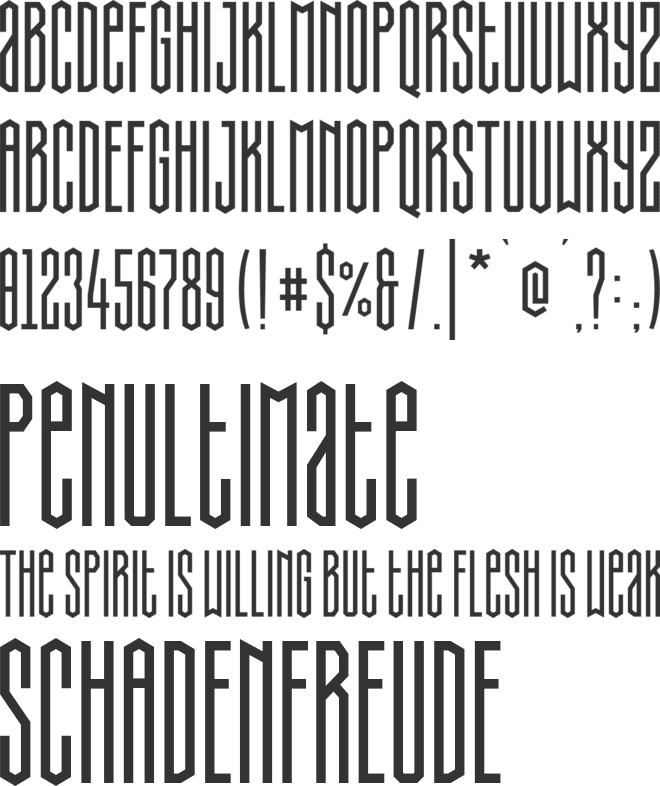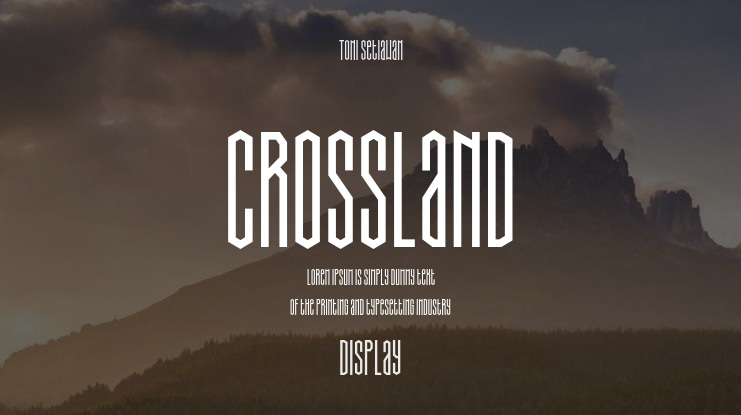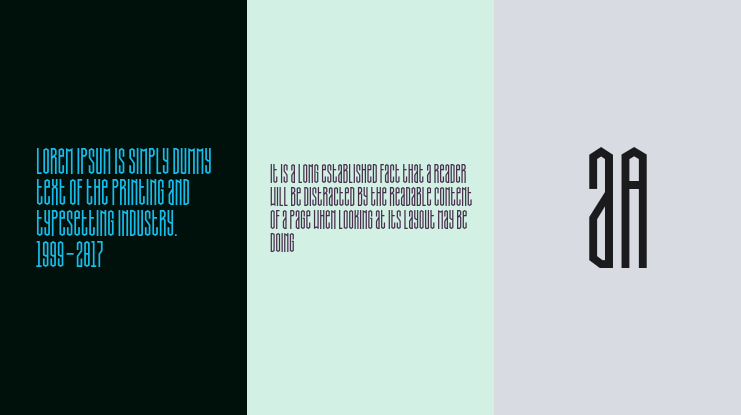
Crossland Font
Dynamic typeface designed for attention-grabbing headlines, sports branding, and any context requiring an energetic, commanding presence.